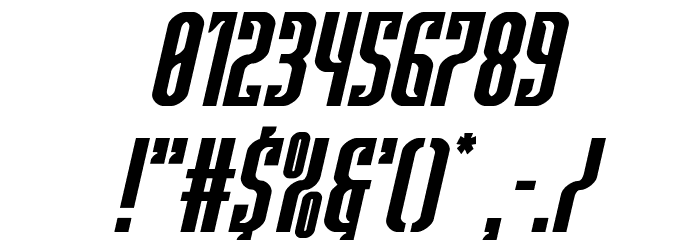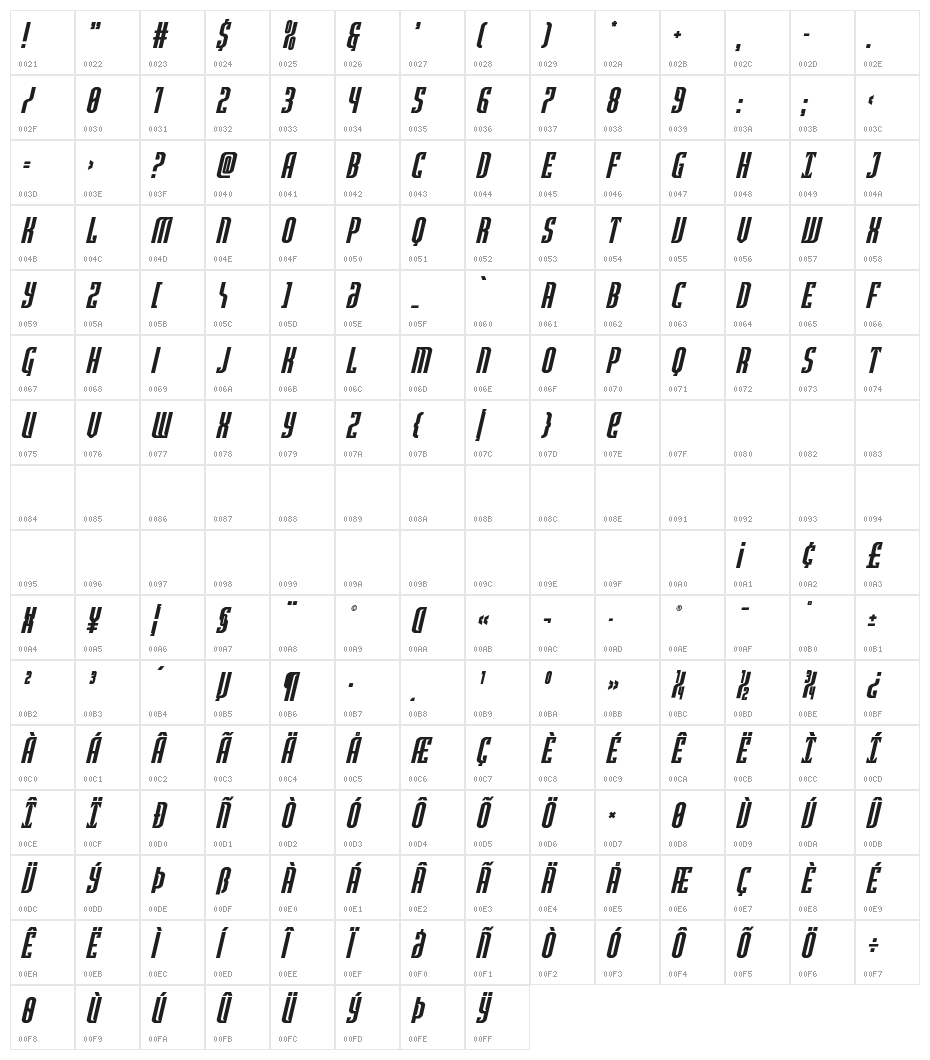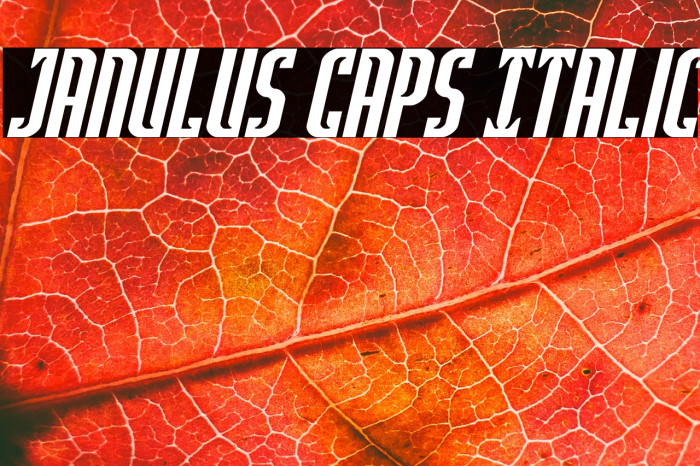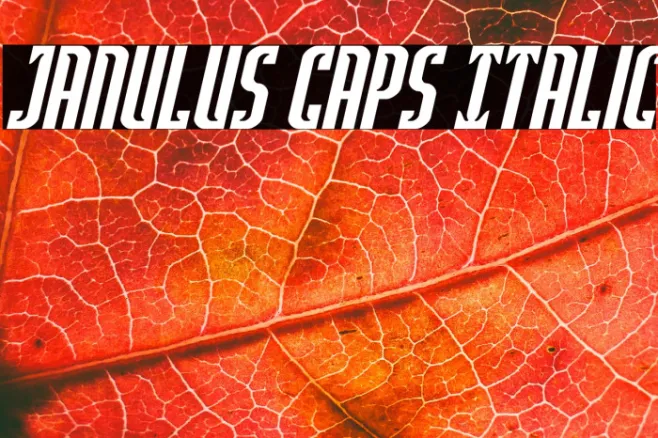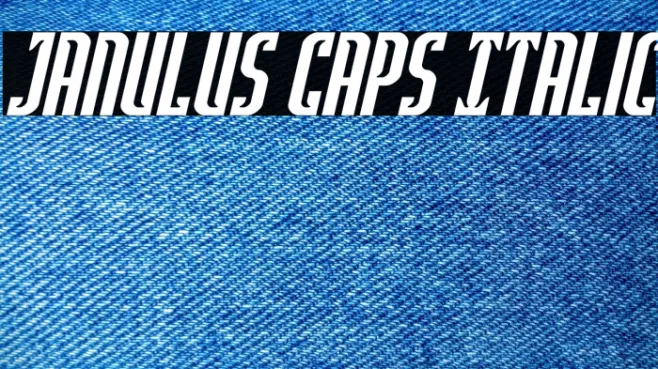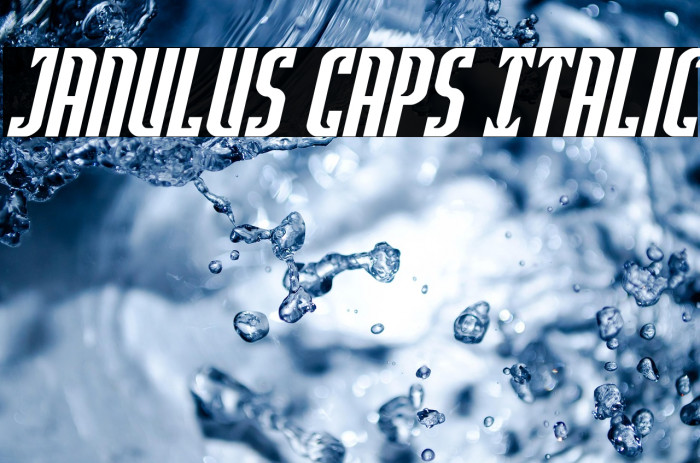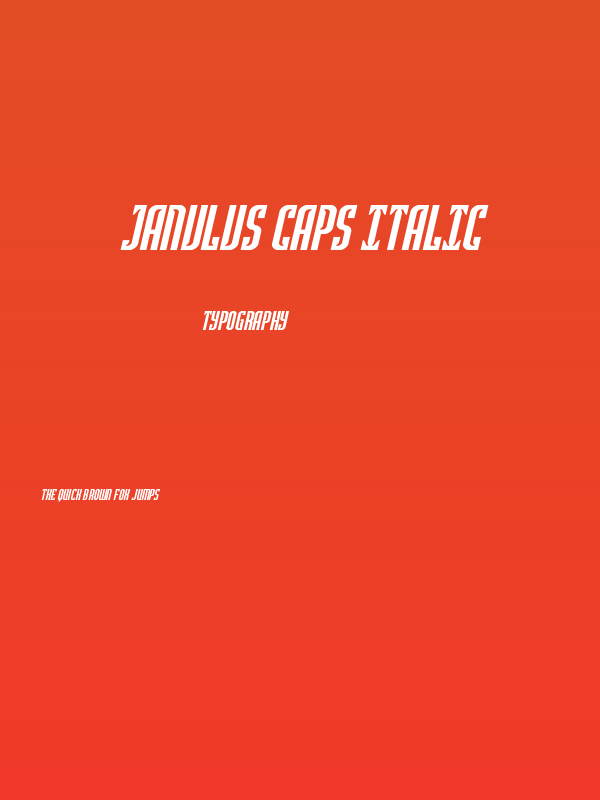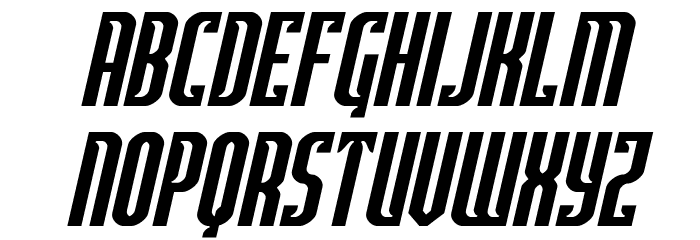
Janulus Caps Italic Font
Janulus Caps Italic Description
This font features a bold and dynamic style with a distinct italic slant, giving it a sense of motion and energy. The characters are tall and narrow, with sharp angles and clean lines that create a modern and assertive appearance. The uppercase letters are particularly striking, with a uniform height that enhances the font's cohesive look. The numerals and special characters maintain the same boldness and angularity, ensuring consistency across all elements. This font's strong presence makes it ideal for impactful designs.
| Proposed Projects | Ideal for sports branding, dynamic posters, and modern advertising campaigns. |